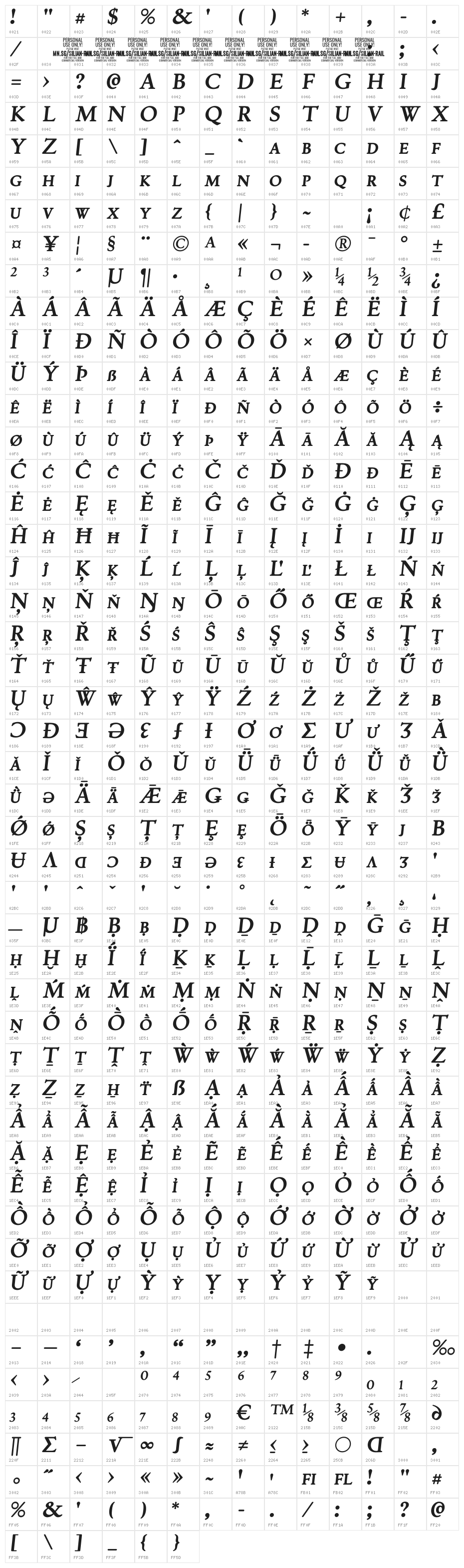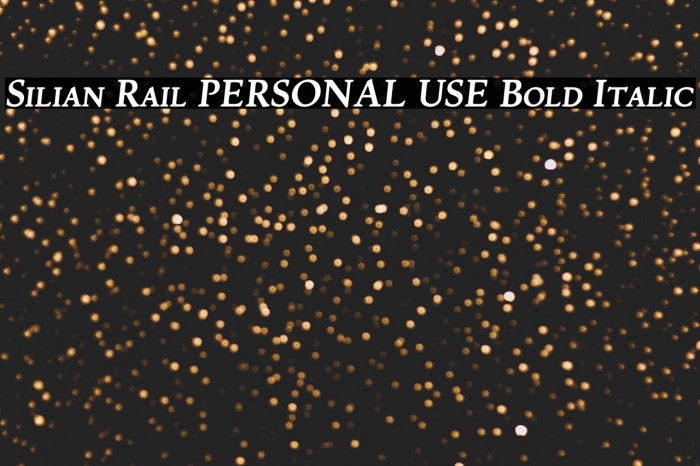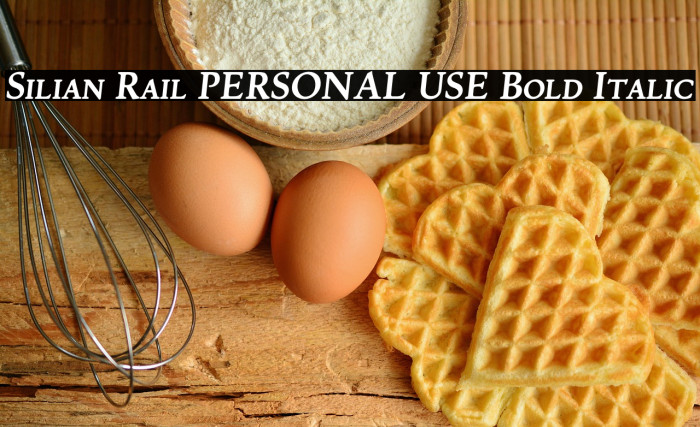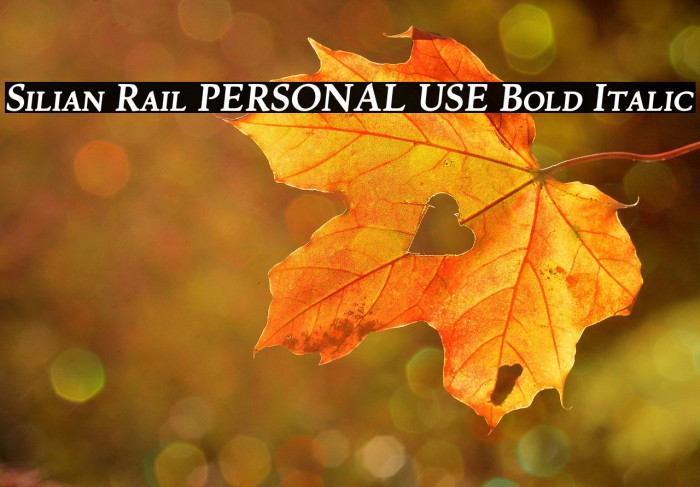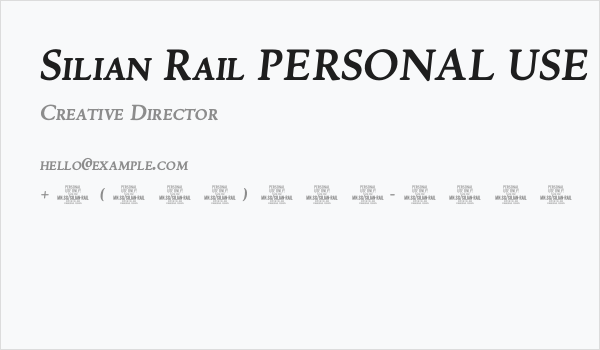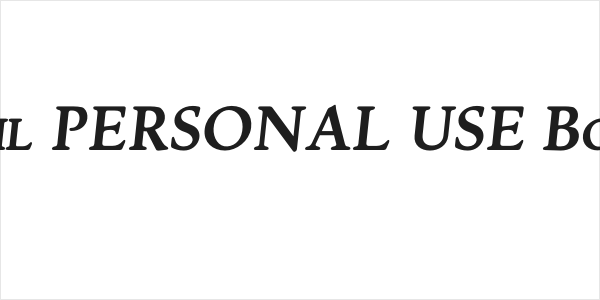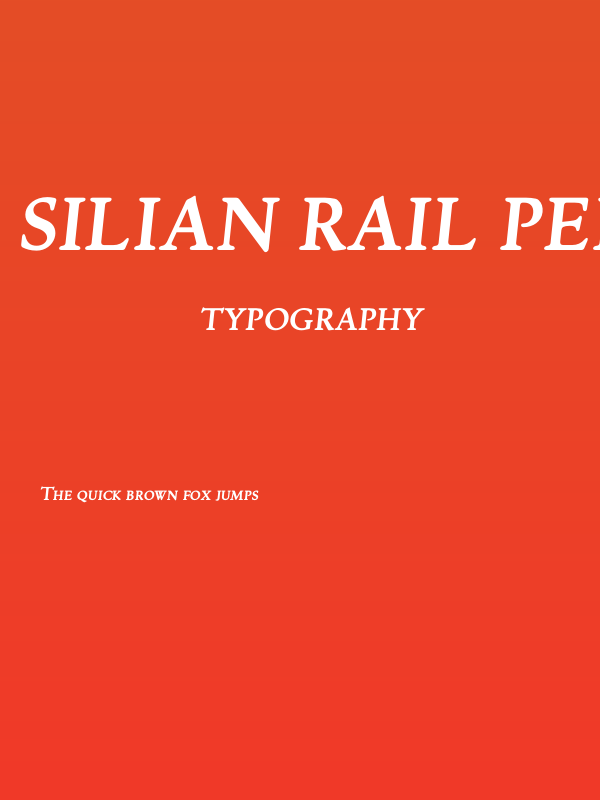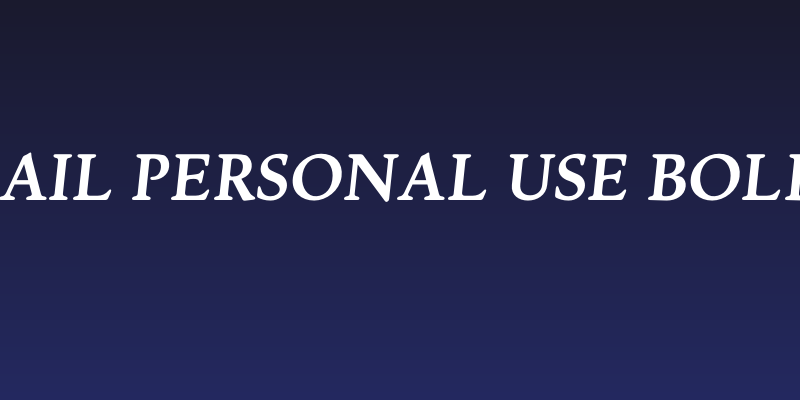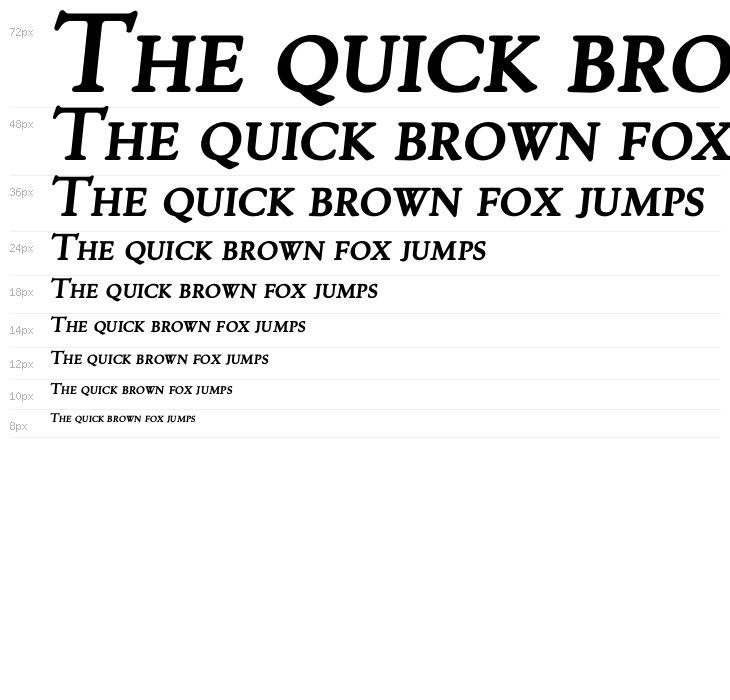
Silian Rail PERSONAL USE Bold Italic Font
Silian Rail PERSONAL USE Bold Italic Description
This font features a bold and italic style, characterized by its strong and dynamic presence. The letters are slightly slanted, adding a sense of motion and elegance. The strokes are thick and consistent, providing a robust appearance. The font includes both uppercase and lowercase letters, numerals, and a variety of special characters. Its design is clean and modern, making it suitable for various applications where a bold statement is needed.